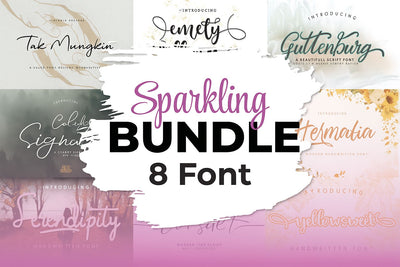
Hurry Up!!! Sparkling Bundle 8 Font Only $5 Ready!!!!! is a design font lettering, quirky, display, calligraphy, hand lettering with an elegant style that can enhance the quality of your designs.